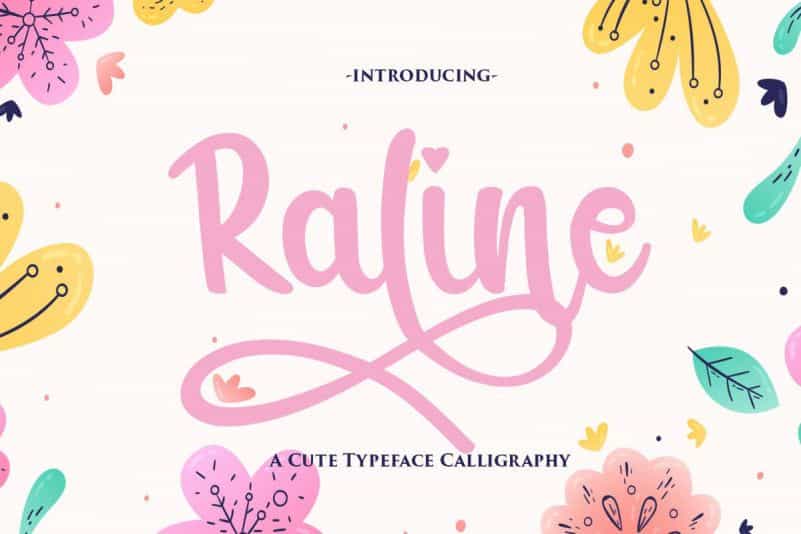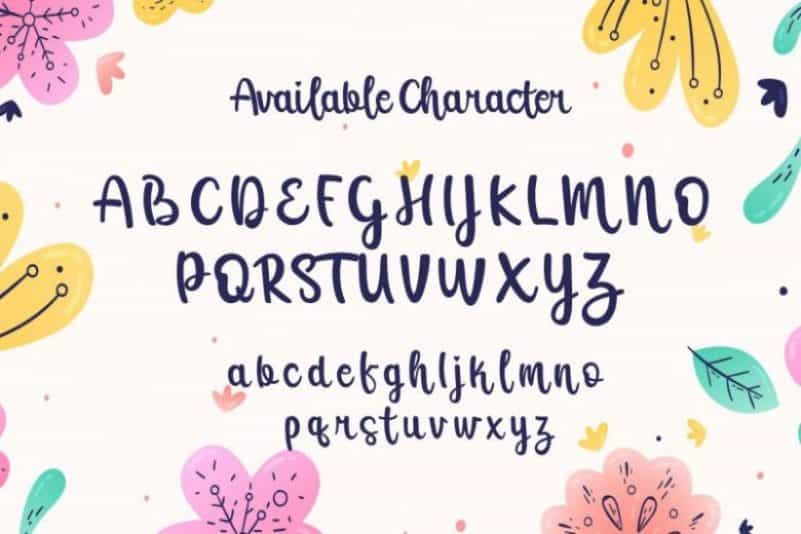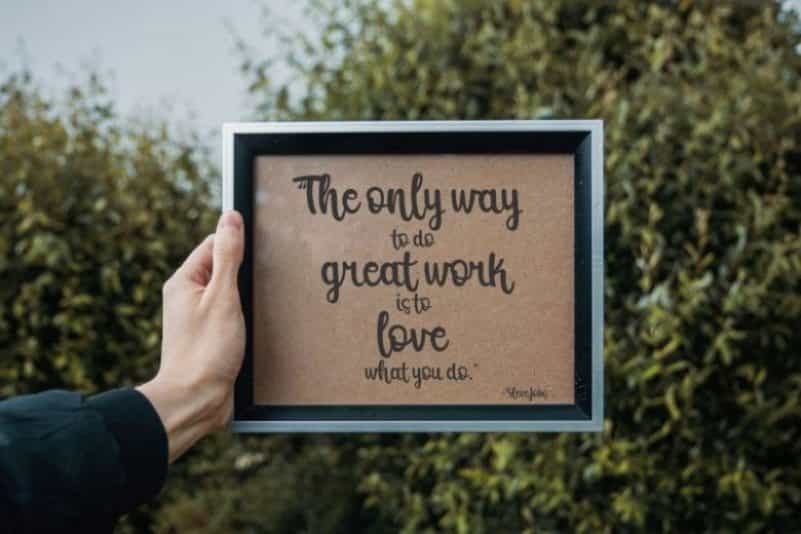
Raline is a sleek modern font with great taste. Because of its alternate characters you will be able to achieve the homemade look to it as soon as possible. I tried to be very careful to make it as simple as possible and I believe it came out well.